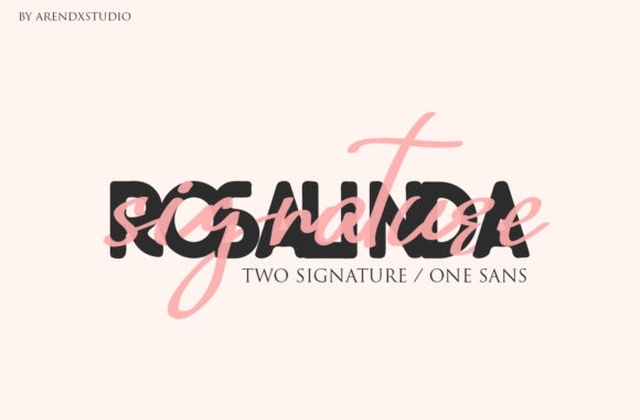
Rosalinda Font
Rosalinda Font is perfect for romantic wedding stationery, luxury beauty salon branding, elegant fashion boutique signage, sophisticated perfume packaging, delicate jewelry marketing, feminine lifestyle magazines, graceful greeting cards, and enchanting social media campaigns. This captivating typeface excels in applications where timeless elegance and feminine sophistication are essential for creating memorable and emotionally resonant brand experiences.
What makes Rosalinda Font truly exciting is its embodiment of classic feminine grace with contemporary design sensibilities that speaks directly to the modern romantic aesthetic. The font features flowing script letterforms with delicate curves and refined flourishes that mirror the natural beauty of blooming roses. Its graceful proportions and elegant rhythm create an atmosphere of sophistication and intimacy that resonates with audiences seeking authentic beauty and personal connection. The typeface's romantic character and timeless appeal make it perfect for brands wanting to convey love, elegance, and connection to traditional feminine values while maintaining contemporary relevance.
The Rosalinda Font family includes regular and ornamental versions, complemented by an extensive collection of decorative swashes and stylistic alternates. The font offers comprehensive OpenType features with contextual ligatures that create seamless script connections, enhancing the natural handwritten appearance. Additional flourished capitals, elegant terminals, and romantic ornamental elements provide designers with enhanced creative flexibility for custom applications and unique brand storytelling opportunities.
For designers seeking an enchanting and versatile script typeface, Rosalinda Font Free Download represents a perfect choice that infuses projects with romantic sophistication and feminine charm. Whether you're creating brand identities for luxury wedding services, designing packaging for premium beauty products, or developing marketing materials for lifestyle brands, this font delivers the refined elegance that appeals to sophisticated audiences seeking authentic romantic experiences. Its graceful letterforms and timeless character make it particularly effective for brands targeting affluent female demographics in fashion, beauty, and luxury sectors. The font's ability to convey both intimacy and elegance makes it an invaluable asset for creating distinctive brand communications that celebrate romance, femininity, and the enduring power of beautiful typography.